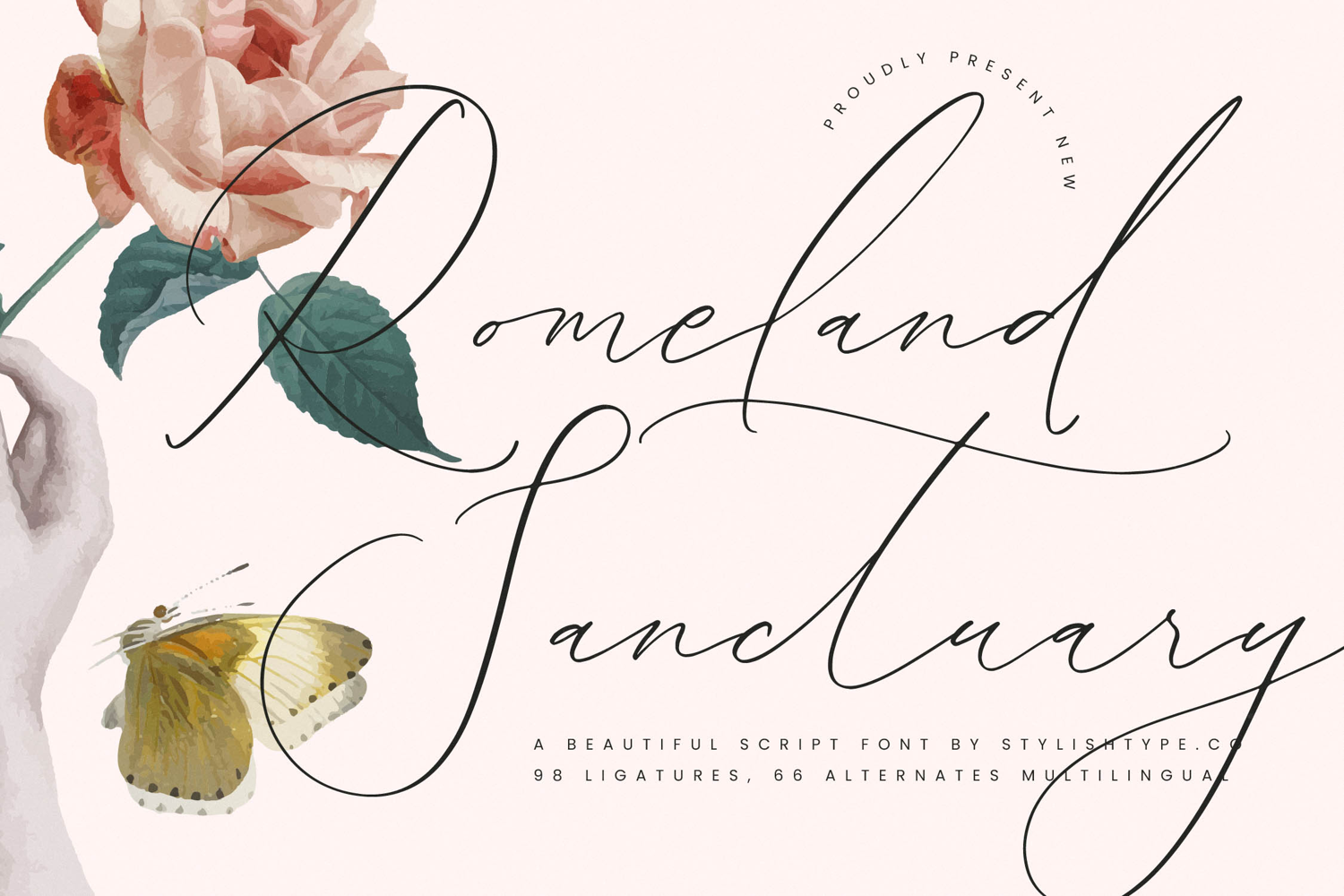
Romeland Sanctuary - Stylish Handwritten Font
Romeland Sanctuary - Stylish Handwritten Font , from Stylishtype.Co , Suitable for any projects such as: logos, branding projects, homeware designs, product packaging, mugs, quotes, posters, shopping bags, t-shirts, book covers, name card, invitation cards, greeting cards, label, photography, watermark, special events, and all your other luxury and beautiful projects that need a Luxury Script taste.